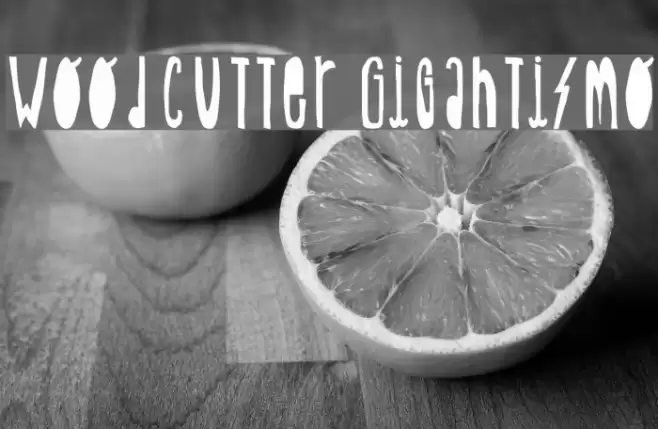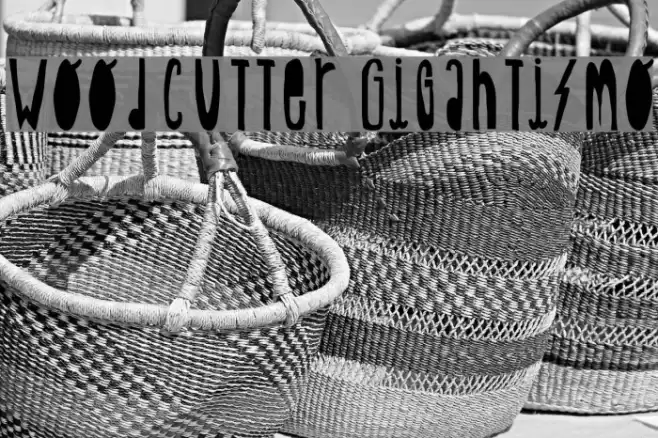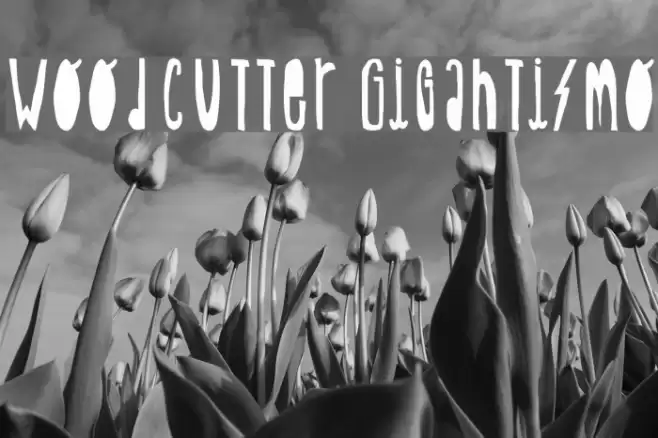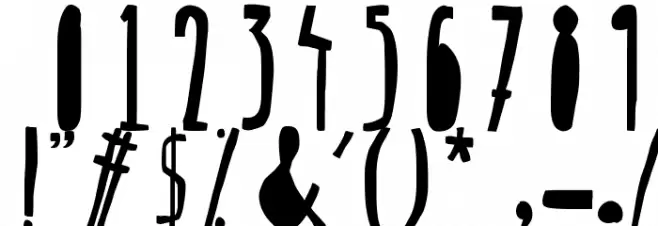
Woodcutter Gigantismo Font
Woodcutter Gigantismo Description
This font features a highly distinctive and bold design, characterized by its exaggerated, elongated forms and playful, irregular shapes. The letters exhibit a mix of thick and thin strokes, creating a dynamic and eye-catching appearance. The uppercase letters are particularly tall and narrow, while the lowercase letters maintain a quirky, whimsical style. Numbers and special characters follow the same exaggerated theme, adding to the font's unique personality. This font's unconventional style makes it stand out, perfect for projects that require a bold statement.
A bold, playful font with exaggerated, elongated forms and irregular shapes from Cartoon fonts.